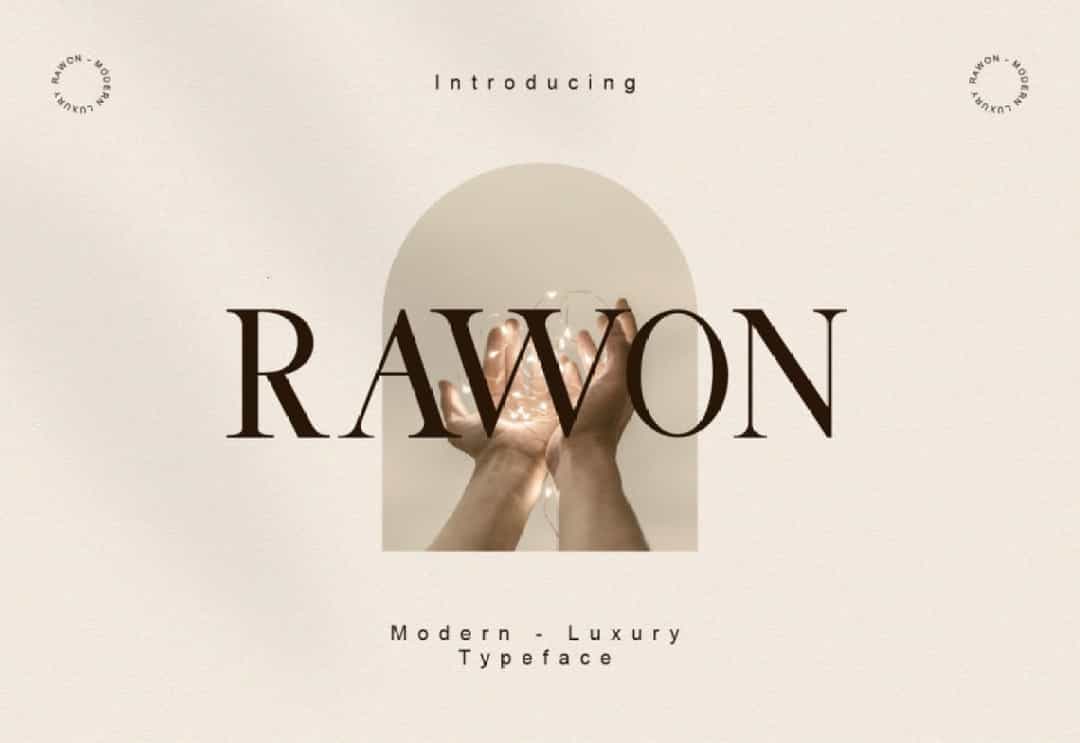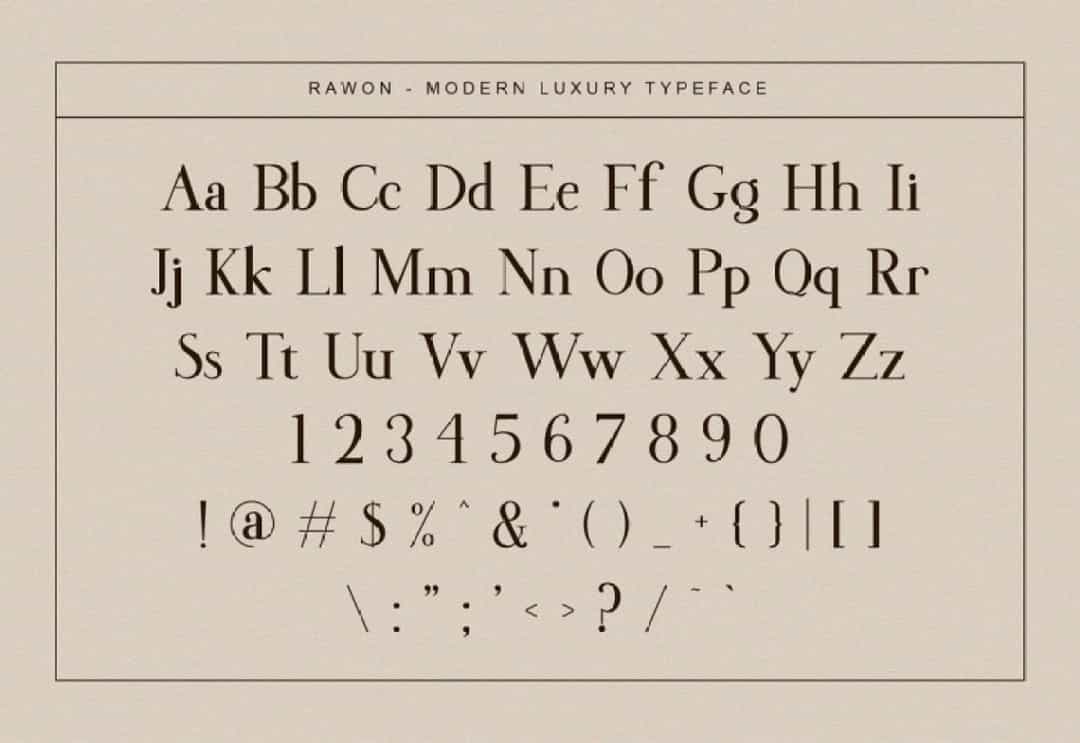
Rawon is an elegant serif typeface suitable for many uses, from wedding invitations and logos to letters, headings, T-shirt displays, signs labels news posters badges, badges and much more.